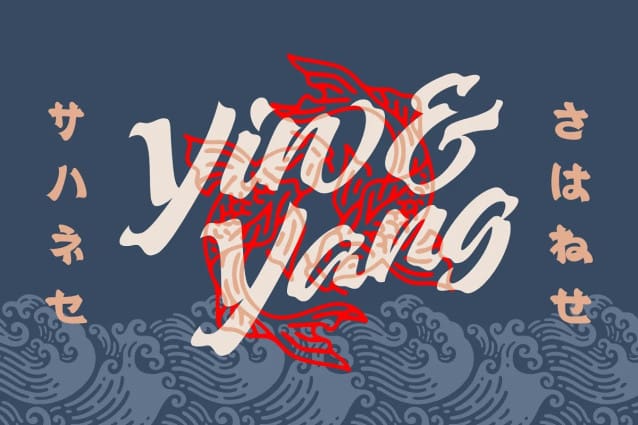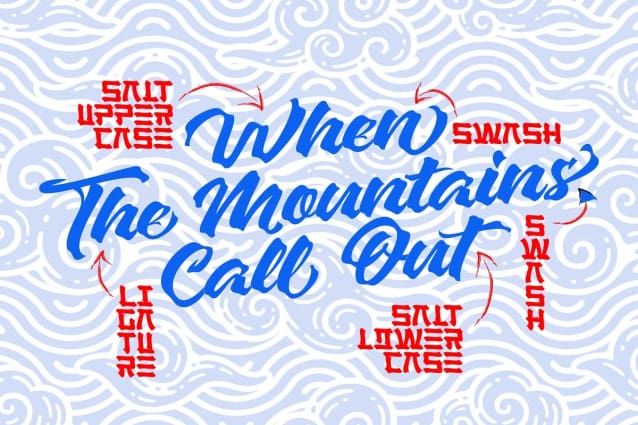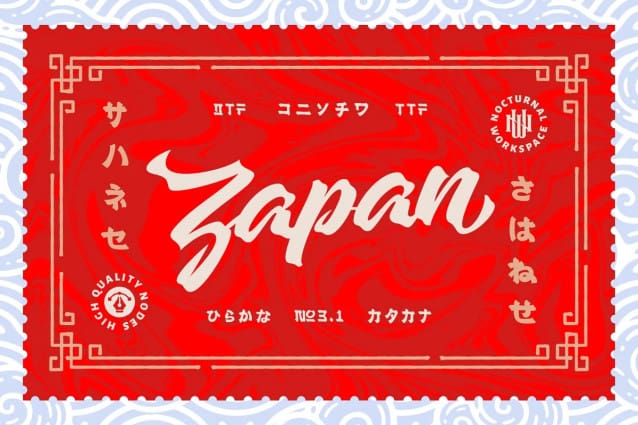
Zapan Script Font
Zapan Script Font was created to enhance the characteristics of Japan or East Asian countries. This font is perfect for designs that need an East Asian touch.
The font comes with standard upper and lower case characters, punctuation, numerals. And other Glyph variations of OpenType features such as Standard Ligatures, Style Replacement, and Style Sets.
Includes a variety of multilingual characters.
Zapan Script Typeface is a typeface suitable for a variety of purposes such as logos, signs, labels, posters, dropcaps, headlines, letterheads, book covers, and more.